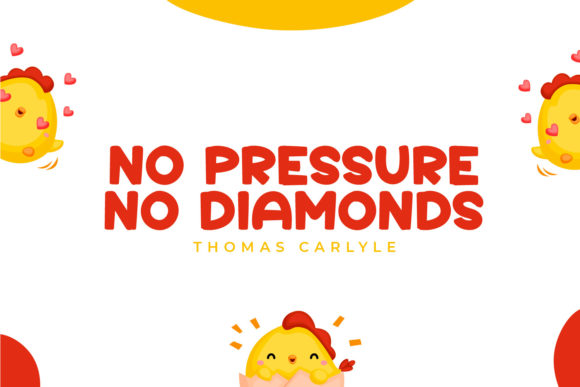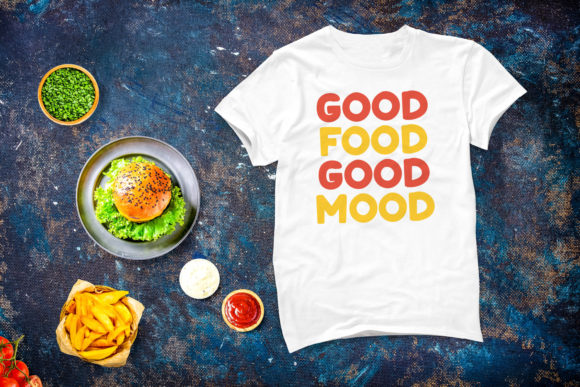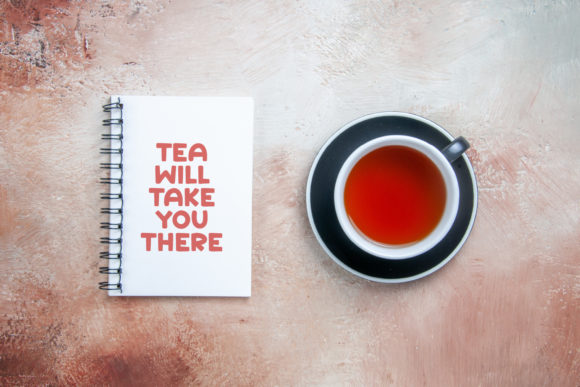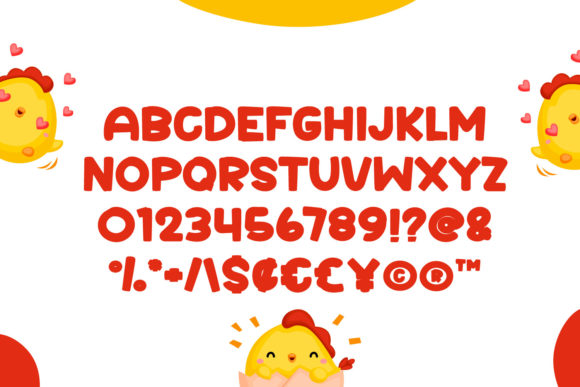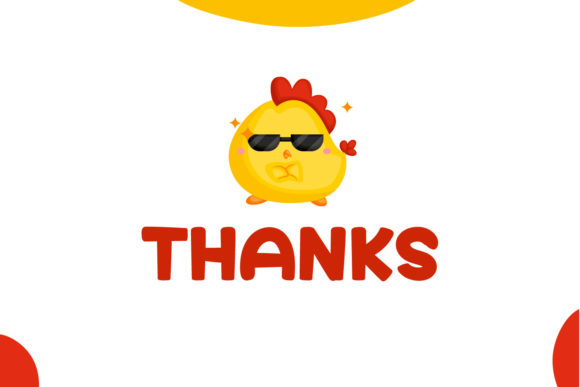
Cute Chicken Font: The Perfect Choice for Kids’ Projects and Activities
Are you a designer, crafter, or parent looking for a fun and playful font to add a personal touch to your kids’ projects and activities? Look no further than the Cute Chicken Font! This sweet, thick-lettered, and friendly display font is designed to bring a sense of playfulness and authenticity to any project, making it the perfect choice for kids’ activities, school projects, and more.
What is Cute Chicken Font?
Cute Chicken Font is a unique and charming display font that is sure to capture the hearts of kids and adults alike. Its thick, bold letters and friendly demeanor make it an ideal choice for projects that require a playful and approachable feel. Whether you’re creating a fun activity sheet, a colorful poster, or a cute craft project, Cute Chicken Font is the perfect choice.
Key Features of Cute Chicken Font
- Playful and Fun: Cute Chicken Font is designed to bring a sense of playfulness and fun to any project. Its bold and thick letters are sure to grab attention and add a touch of whimsy to your designs.
- Thick and Bold Letters: The font features thick and bold letters that are easy to read and perfect for display purposes.
- Authentic and Friendly: Cute Chicken Font has a friendly and approachable feel that makes it perfect for kids’ projects and activities.
- Versatile: The font can be used for a wide range of projects, from activity sheets and posters to craft projects and more.
Why Choose Cute Chicken Font?
So, why choose Cute Chicken Font for your kids’ projects and activities? Here are just a few reasons:
- Perfect for Kids: The font is designed specifically with kids in mind, making it perfect for activity sheets, school projects, and more.
- Easy to Read: The thick and bold letters make it easy for kids to read and understand.
- Adds a Personal Touch: Cute Chicken Font adds a personal touch to any project, making it more engaging and fun for kids.
- Wide Range of Uses: The font can be used for a wide range of projects, from digital designs to print materials.
In conclusion, Cute Chicken Font is a sweet, thick-lettered, and friendly display font that is perfect for kids’ projects and activities. Its playful and authentic feel makes it an ideal choice for designers, crafters, and parents looking to add a personal touch to their designs. With its wide range of uses and easy-to-use format, Cute Chicken Font is sure to become a favorite font for kids’ projects and activities.